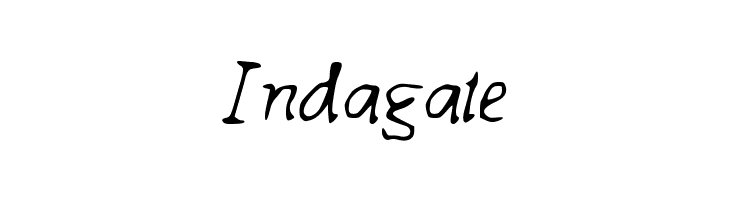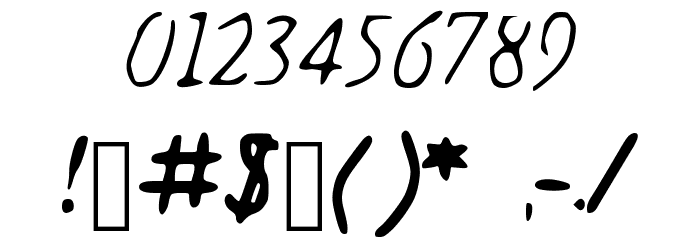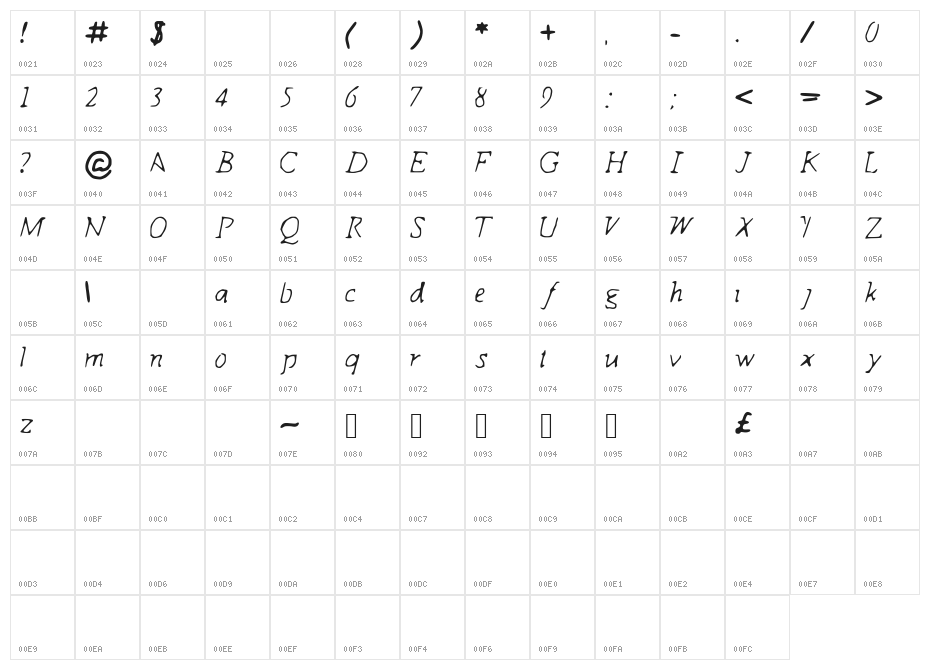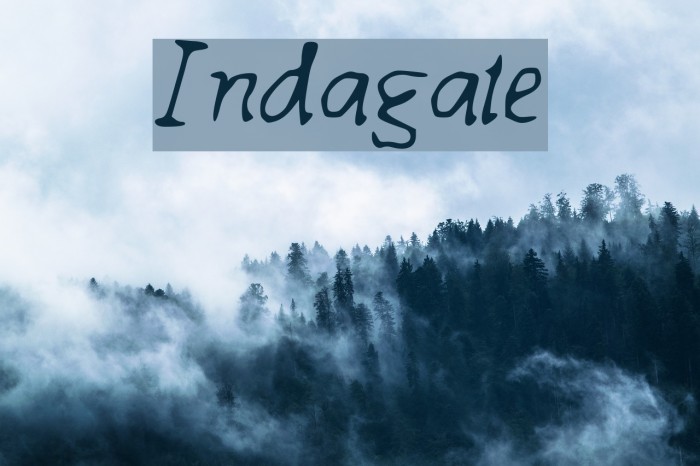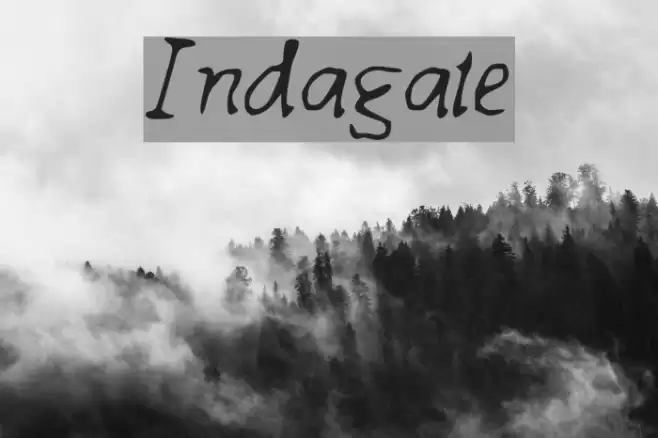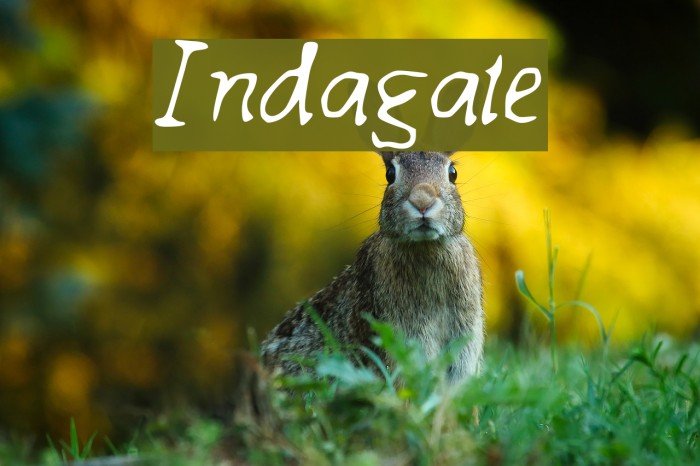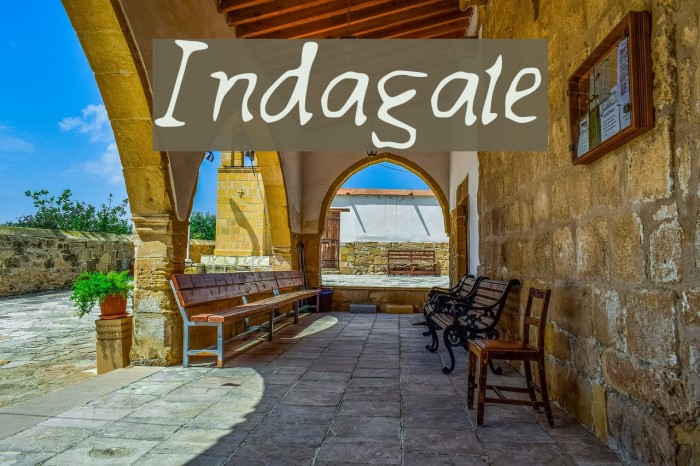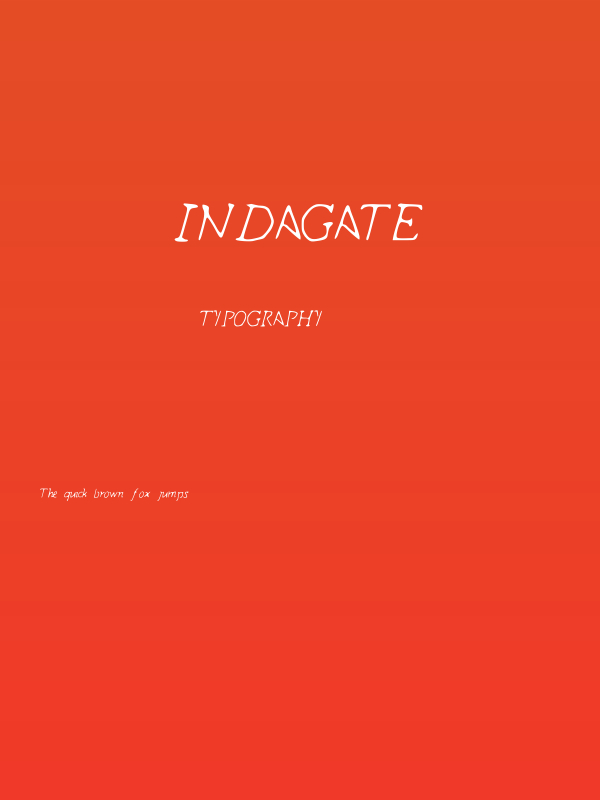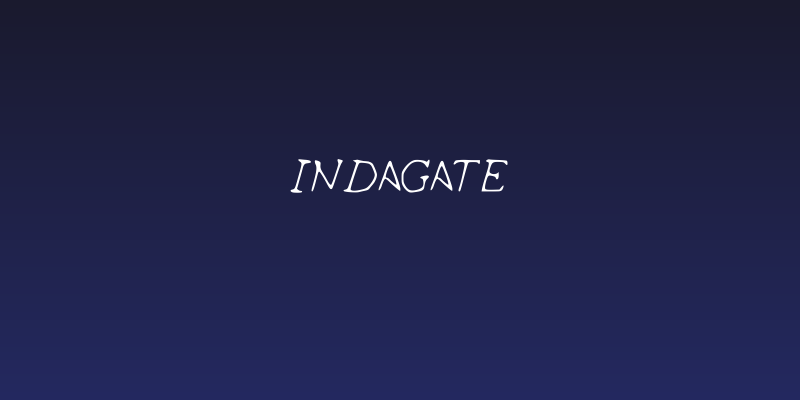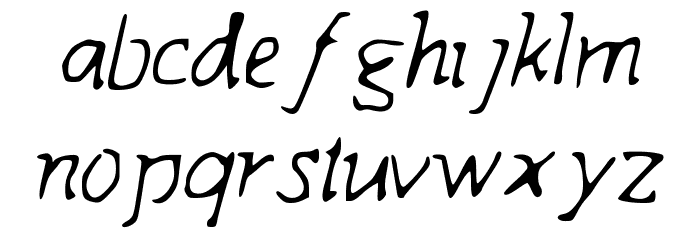
Indagate Font
Indagate Description
This font exhibits a dynamic and fluid script style, characterized by its elegant and slightly slanted letterforms. The uppercase letters are bold and expressive, with a distinctive flair that adds a touch of sophistication. The lowercase letters maintain a consistent flow, enhancing readability while preserving the artistic essence. Numerals are well-integrated, matching the overall aesthetic with their smooth curves and balanced proportions. Special characters are creatively designed, adding versatility to the font's application. The overall impression is one of elegance and creativity, making it suitable for projects that require a personal and artistic touch.